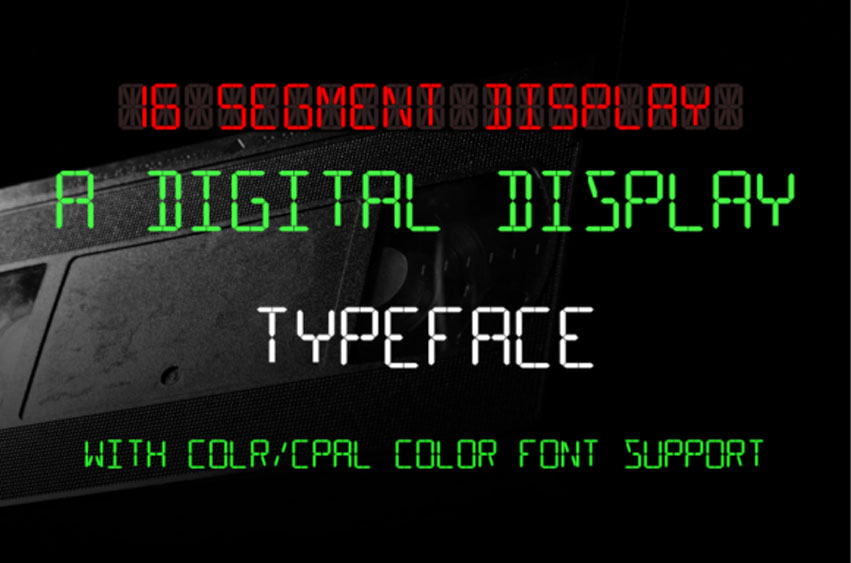
16 Segment Display Font
16 Segment Display Font is a color font emulating a segment display such as those used in old VCRs, CD players, and clock radios.